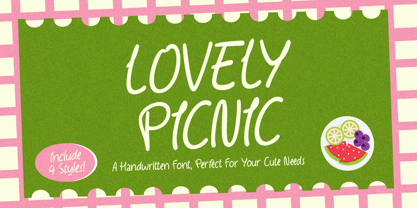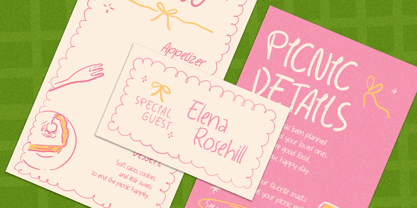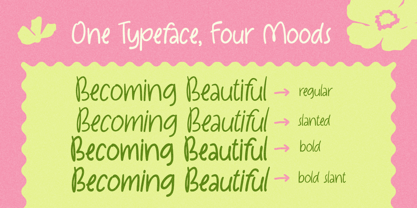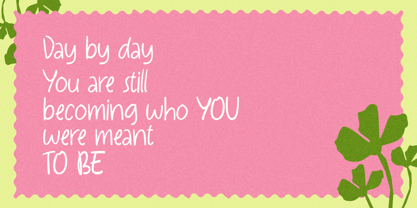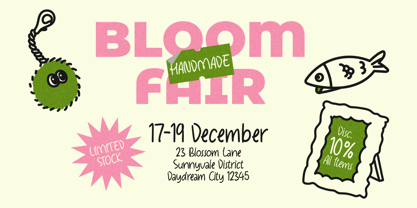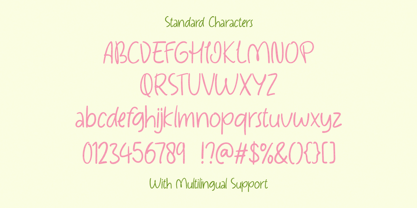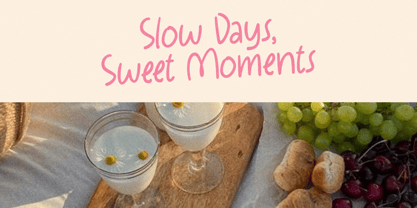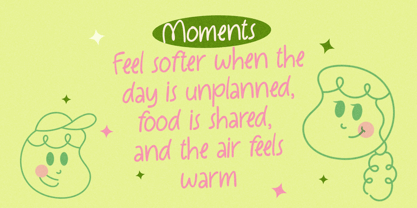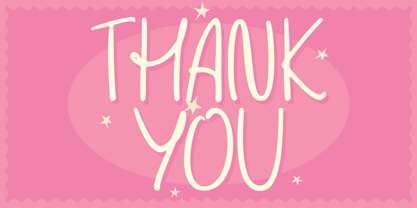
Lovely Picnic
by Letterhend
The Lovely Picnic Font Family was designed by Hendry Juanda and published by Letterhend. Lovely Picnic contains 4 styles and family package options. More about this family
Lovely Picnic is a cheerful handwritten font with soft strokes, rounded shapes, and a casual doodle feel that instantly brings a sweet, sunny mood. The letters look naturally drawn, slightly imperfect, and full of friendly warmth—perfect for playful designs that want to feel cute, relaxed, and inviting. Features : Uppercase & lowercase Numbers and punctuation Alternates & Ligatures Multilingual Support PUA encoded
Designers: Hendry Juanda
Foundry: Letterhend